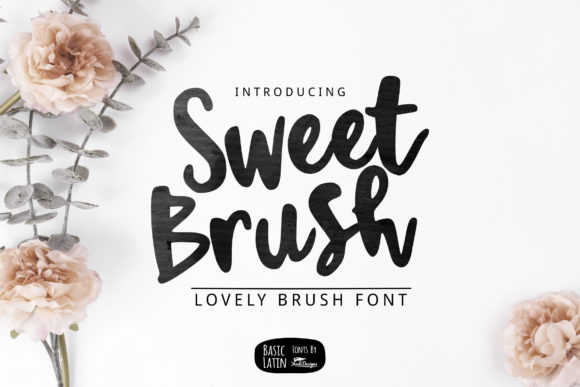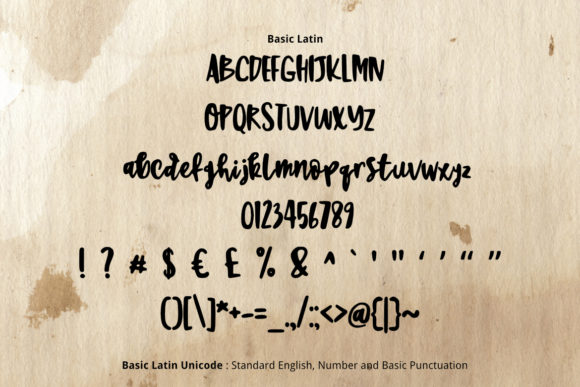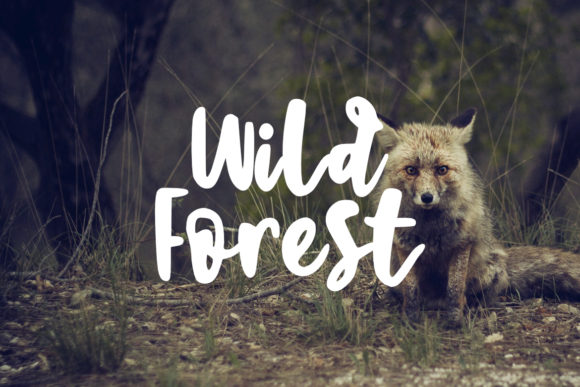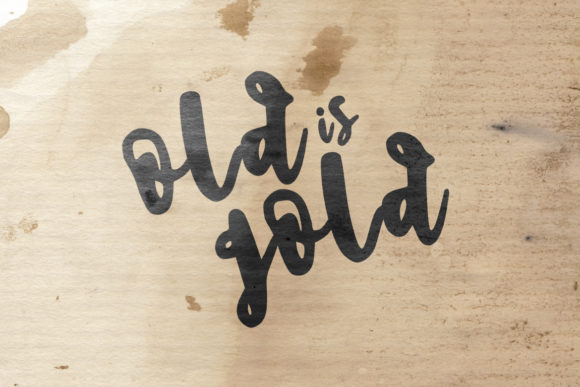
Sweet Brush Font
About Sweet Brush Font
Sweet Brush is inspired by classic typography and brings its own unique style to any design project. This fantastic script font is best suited for headlines of all sizes, as well as for blocks of text that have both maximum and minimum variations. Whether it’s for web, print, moving images or anything else – Sweet Brush will look spectacular.